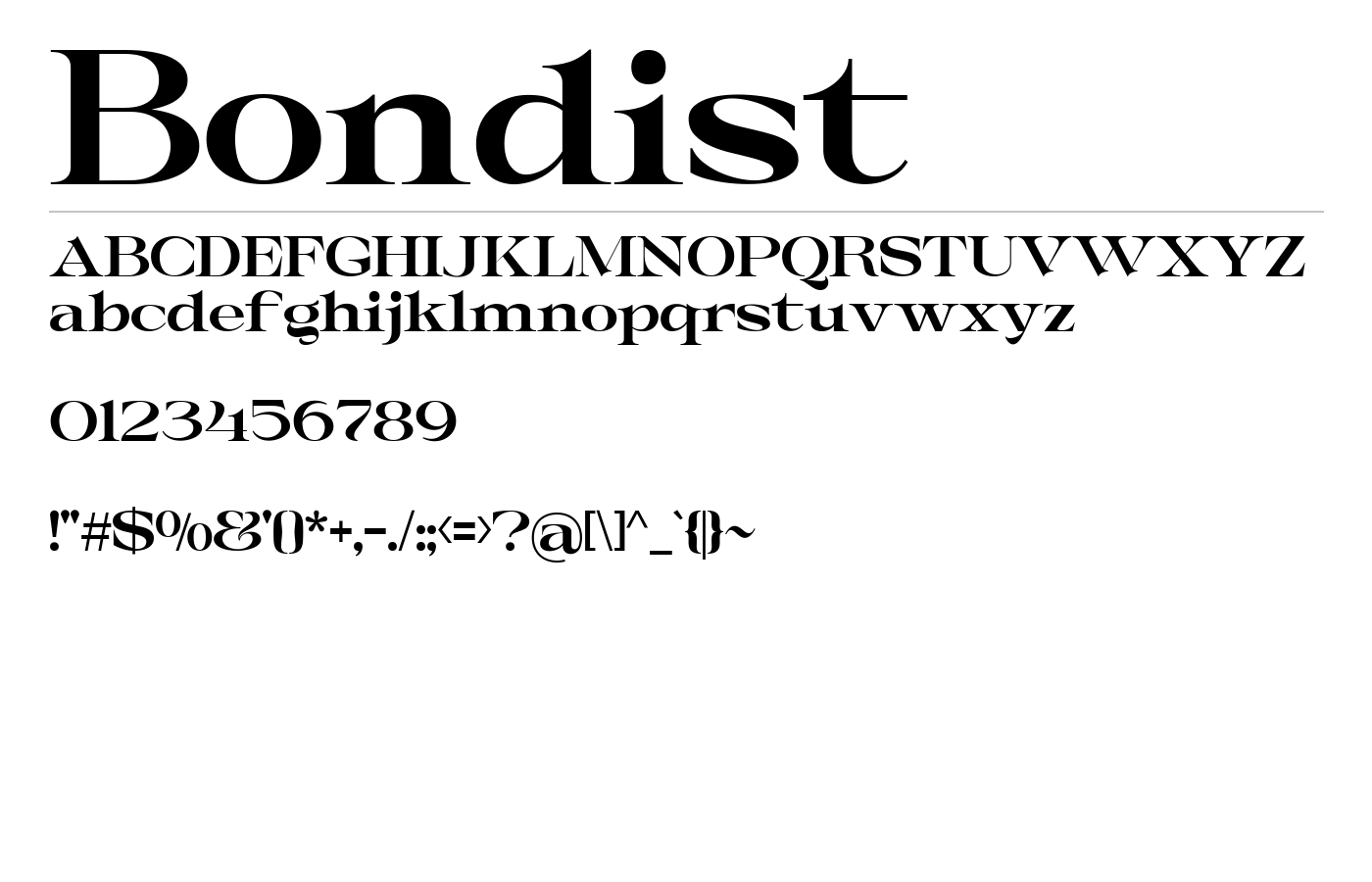
Bondist is a stylish serif font featuring high contrast between thick and thin strokes, paired with sharp, bracketed serifs that exude a timeless elegance. Its balanced proportions and refined letterforms make it ideal for luxury branding, editorial headlines, and sophisticated packaging where a sense of classic refinement and modern flair is desired. This font works beautifully to convey authority and sophistication with a contemporary edge.
Bondist Font
About Bondist Font
| Font family | Bondist Font |
| Designer | Fajar Gunawan |